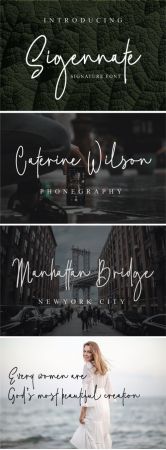
Sigennate is a refined and delightful script font. It is the best choice for creating eye catching logos, branding and quotes. Every letter has a unique and all round touch, which will make your design come alive!